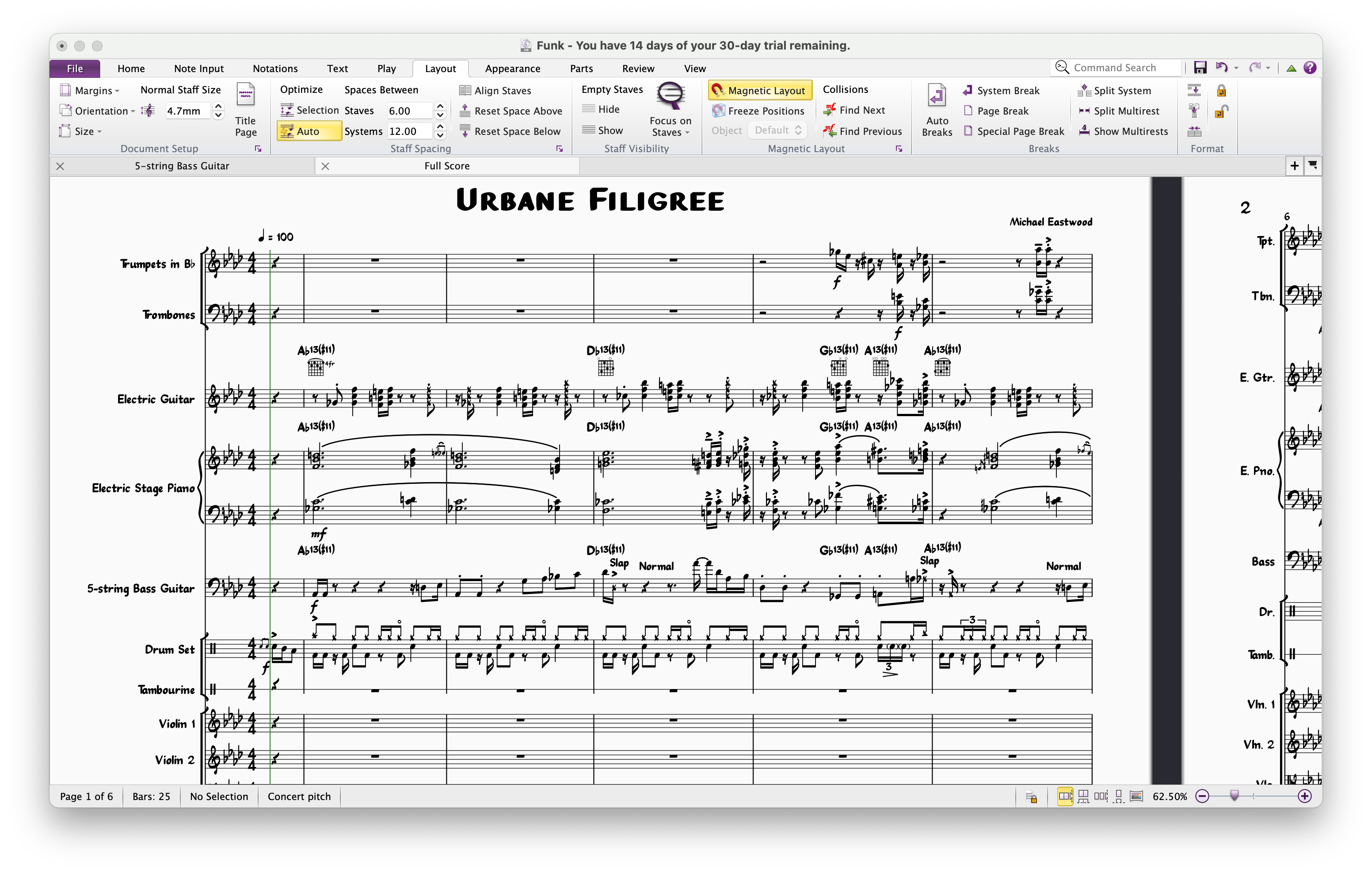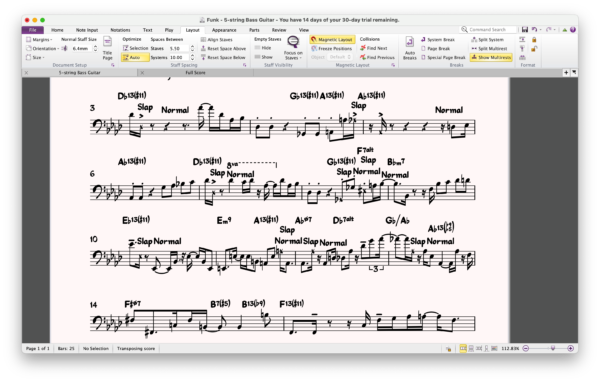
Groove is handwritten music and text fonts for Dorico with lots of personality. Nothing else will get you as close to the look and feel of the classic Broadway scores in the style of West Coast copyists.